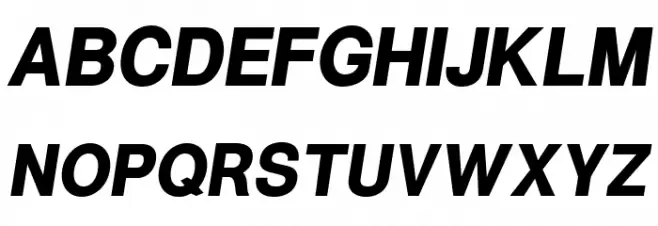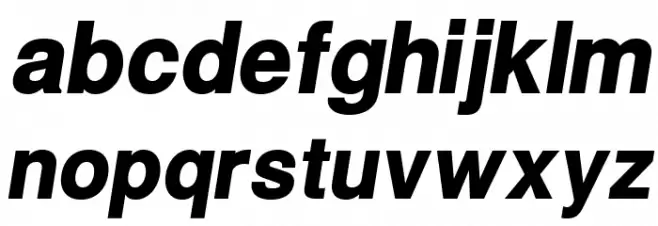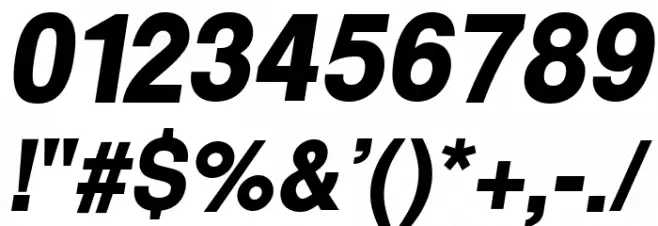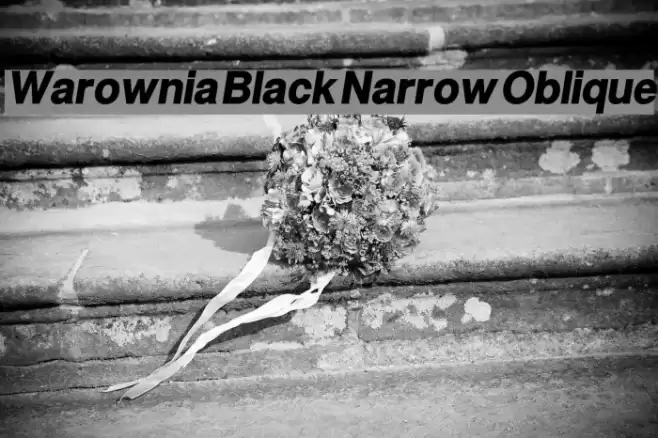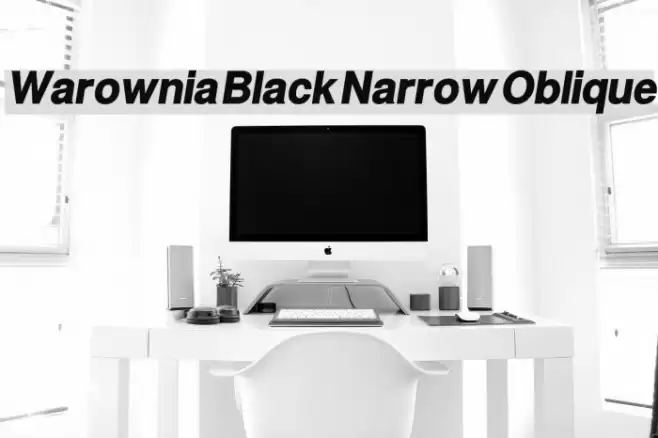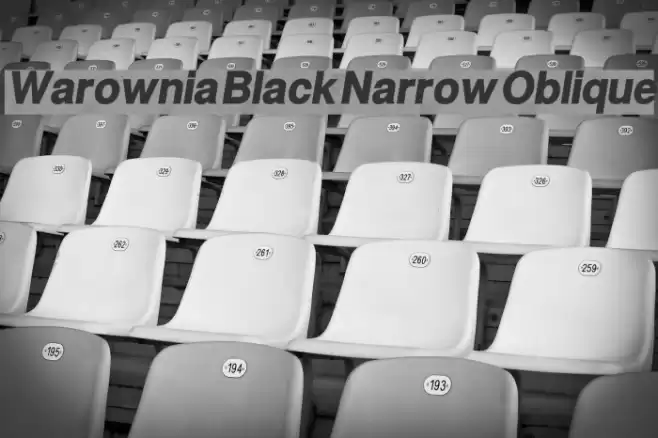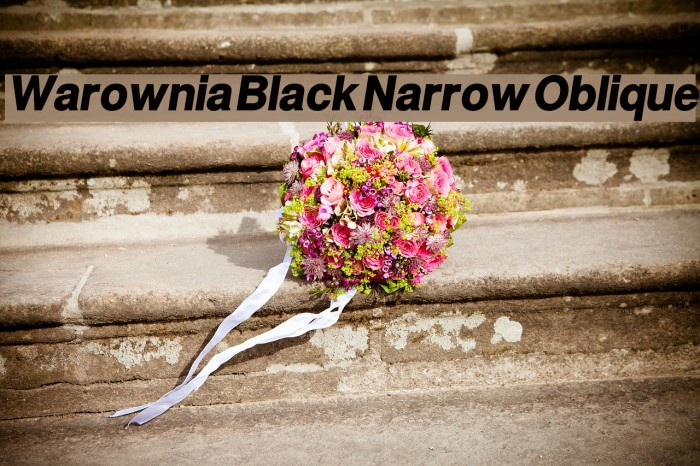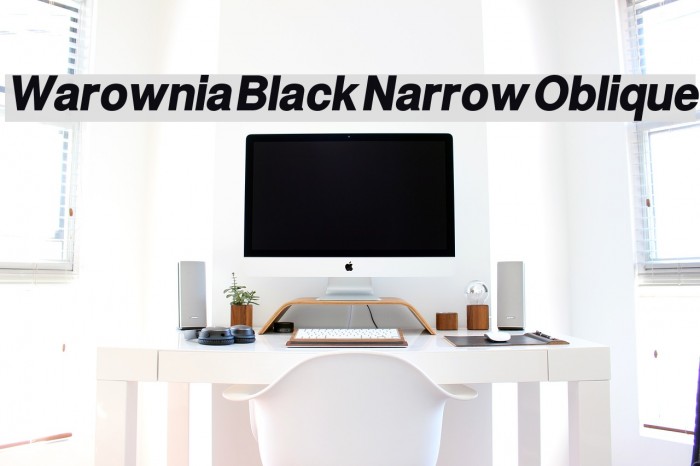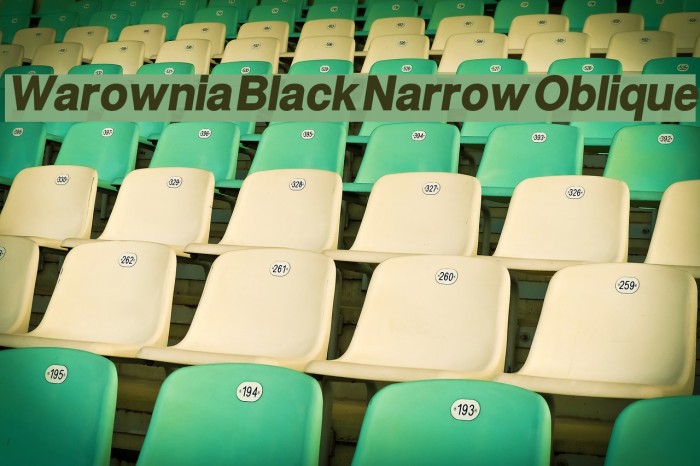
Warownia Black Narrow Oblique
This font features a bold and narrow design with an oblique slant, giving it a dynamic and modern appearance. The characters are tightly spaced, enhancing its compact and impactful look. The strokes are thick, providing high contrast and making the text stand out prominently. Its style is clean and straightforward, suitable for conveying a strong and assertive message. The uppercase and lowercase letters maintain a consistent style, ensuring readability and uniformity across different text sizes.
Bold, narrow, and oblique font with high contrast and tight spacing.
- Proposed Projects: Ideal for headlines, posters, branding materials, and advertising where a strong visual impact is needed.
- Width: Condensed
- Character Spacing: Tight
- Contrast: High